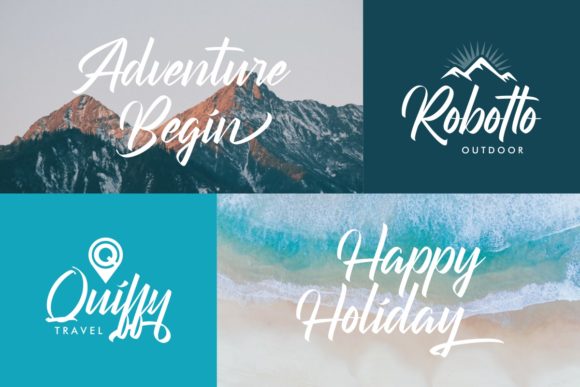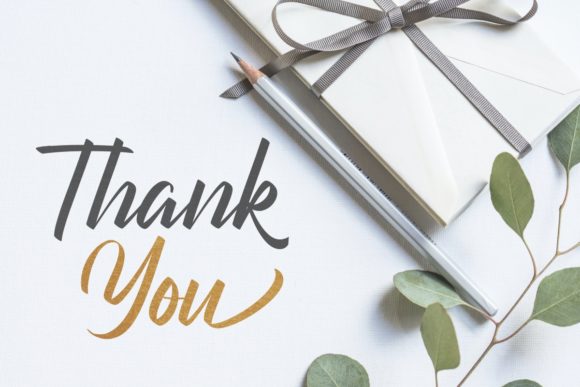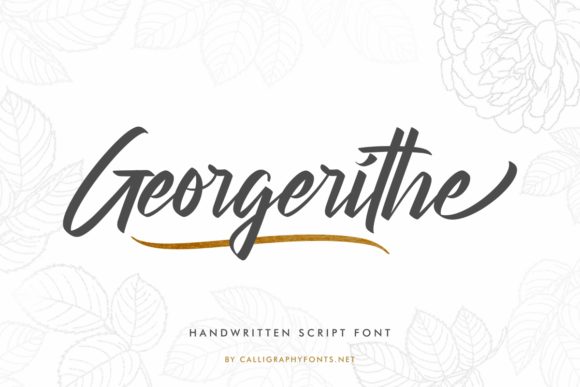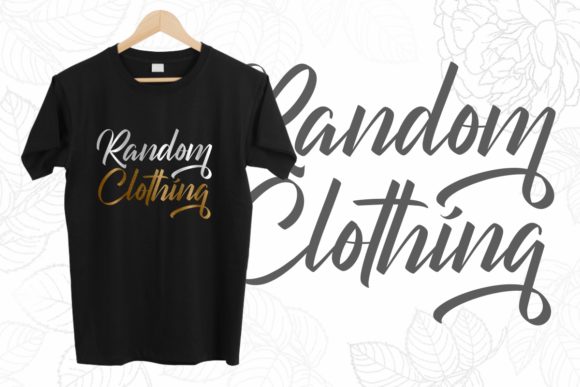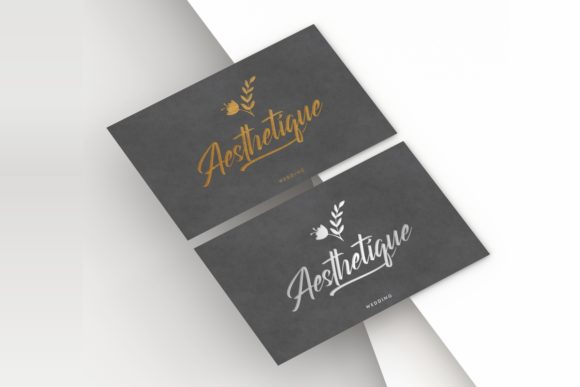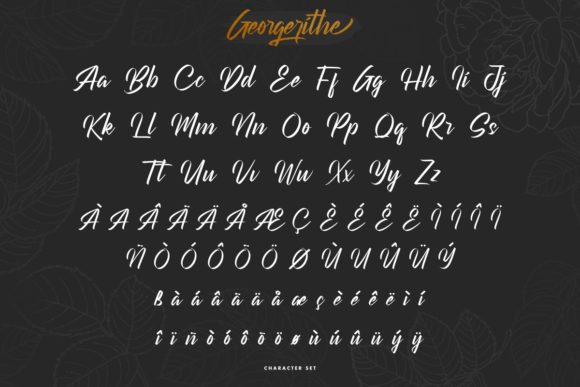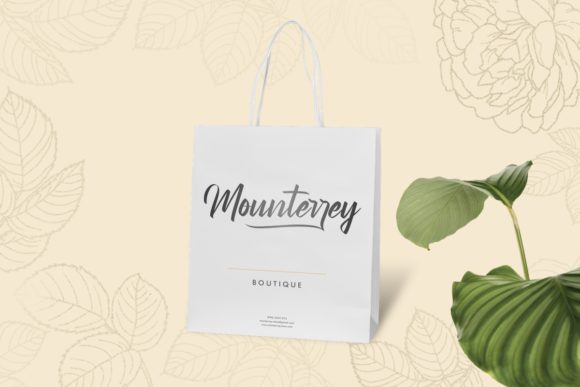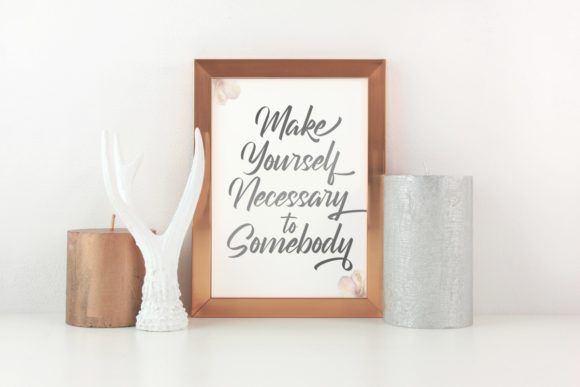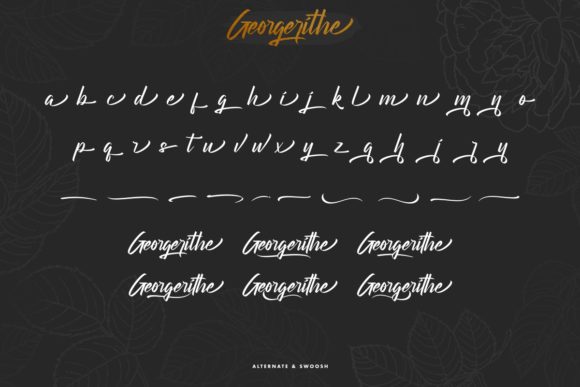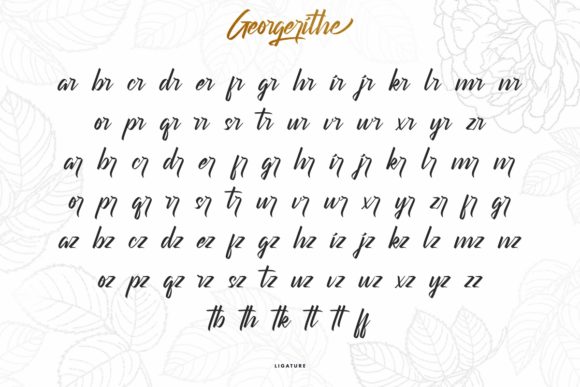
Georgerithe Font
About Georgerithe Font
Georgerithe is a stunning and luxurious handwritten font that effortlessly combines modernity and elegance. With its adventurous and authentic feel, this font is the perfect choice for adding a touch of sophistication to your design projects.
The letterforms of Georgerithe are meticulously crafted to exude a sense of luxury and style. Each character has a unique and artistic touch, creating a visual experience that is both captivating and memorable. Whether you’re working on branding, logos, invitations, packaging, or any other design project, Georgerithe will elevate your ideas to new heights.
The adventurous spirit of Georgerithe shines through in its dynamic and contemporary style. The flowing strokes and balanced proportions give the font a sense of movement and energy, making it suitable for a wide range of designs. From fashion and beauty branding to travel and lifestyle themes, Georgerithe adds an air of sophistication and authenticity to your creations.
Moreover, Georgerithe’s PUA encoding ensures easy access to all the glyphs and swashes. This means you can effortlessly explore and incorporate the various decorative elements and alternates available, adding even more versatility and creativity to your designs. Whether you’re looking to embellish a headline, create unique wordmarks, or enhance the overall aesthetic of your composition, Georgerithe offers you the freedom to customize and personalize with ease.
When using Georgerithe, you can expect your design projects to exude a sense of modern luxury and refinement. The font’s adventurous and authentic feel will resonate with your audience, leaving a lasting impression. From high-end branding to editorial layouts and beyond, Georgerithe is a font that brings sophistication and style to any design concept.